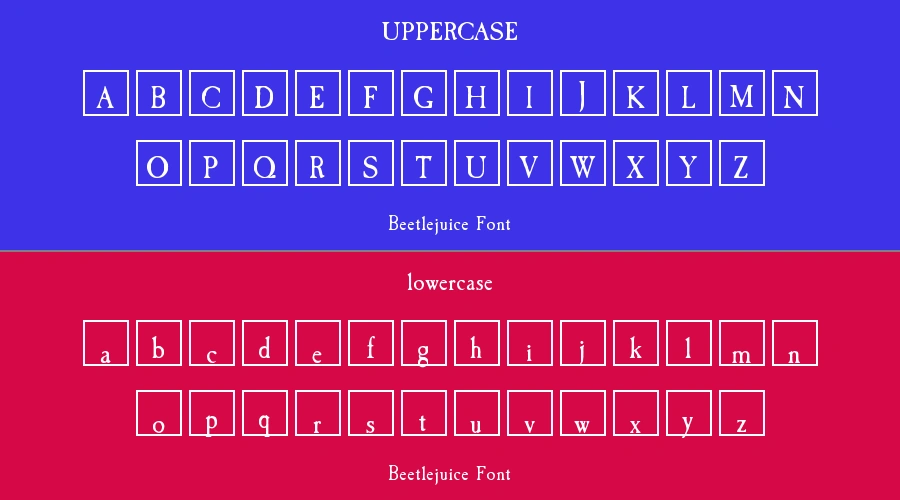
About Beetlejuice Font
Beetlejuice Font embodies typographic excellence through its masterful combination of rounded serifs and functionality. Created for brand guidelines, this typeface delivers exceptional precision and market appeal across all applications. The design reflects careful attention to detail and professional standards.
Advanced capabilities include distinctive tapered strokes and versatile historical alternates, giving designers creative control. When used in running text, Beetlejuice Font exhibits remarkable hinting quality. The harmonious balance between descender depth and market positioning sets this typeface apart.